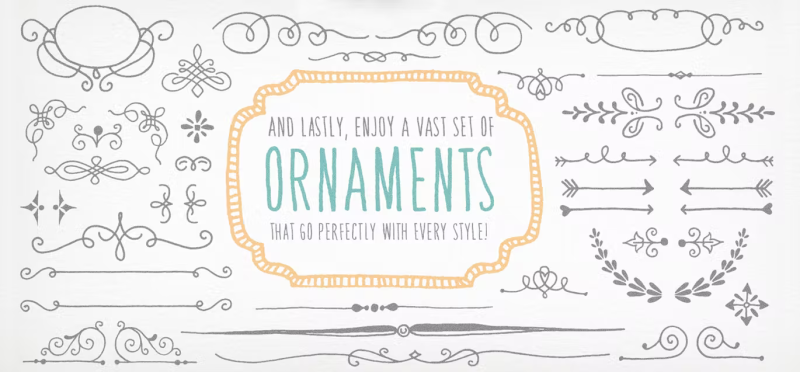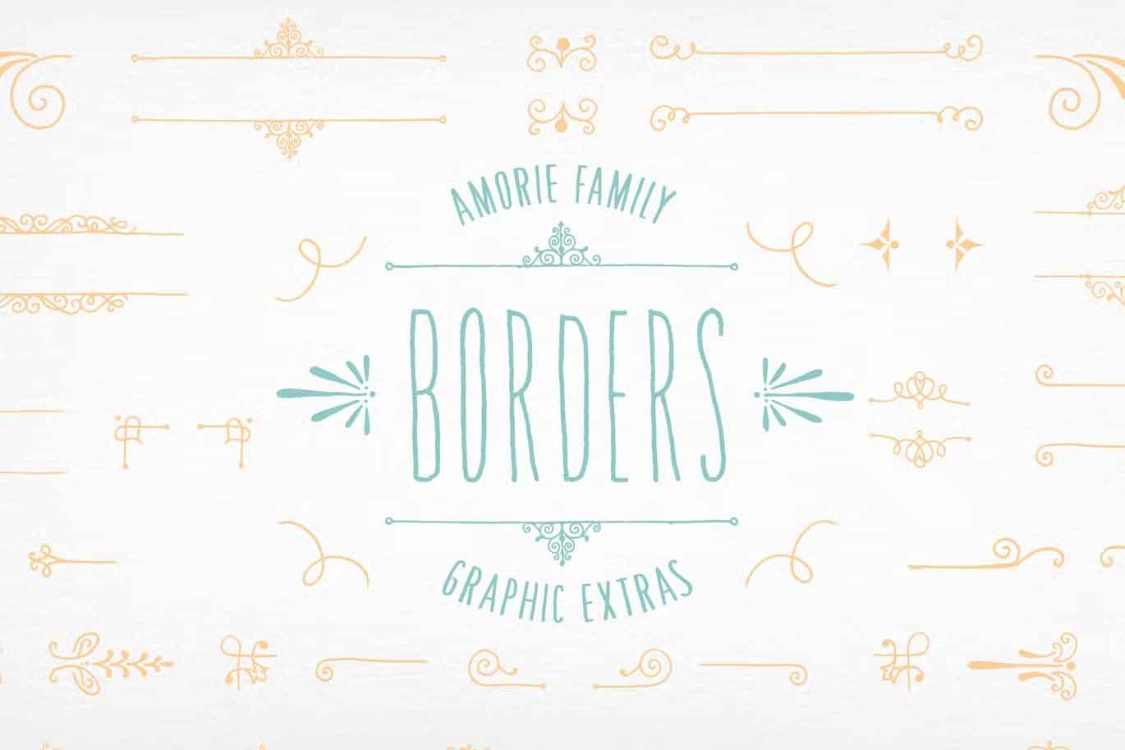
Amorie Font Elements
This is the set of graphic extras built to go with Amorie Modella, Nova, SC as well as the other ornament sets for Amorie. Included in this package are files for:
Amorie Font Elements is a Handwriting Fonts font that brings a professional and versatile look to your projects. This is the set of graphic extras built to go with Amorie Modella, Nova, SC as well as the other ornament sets for Amorie.